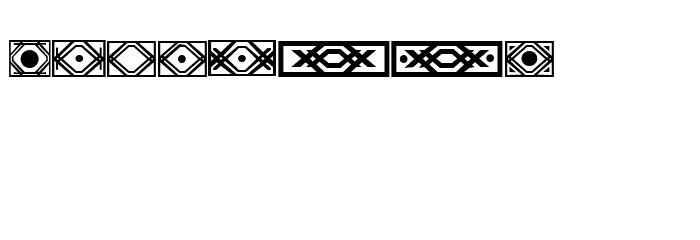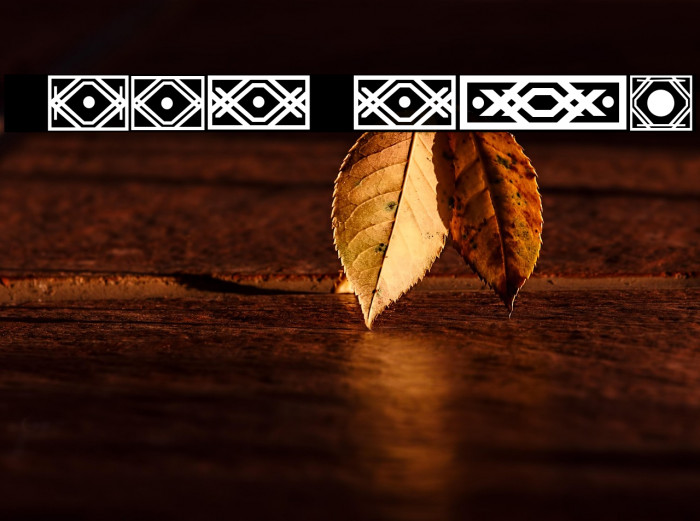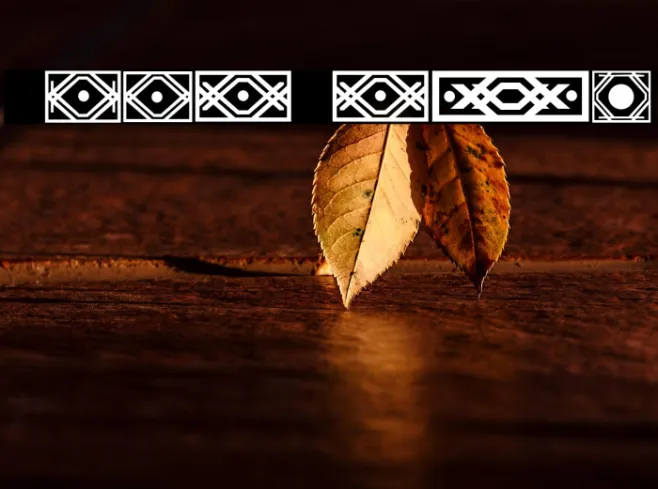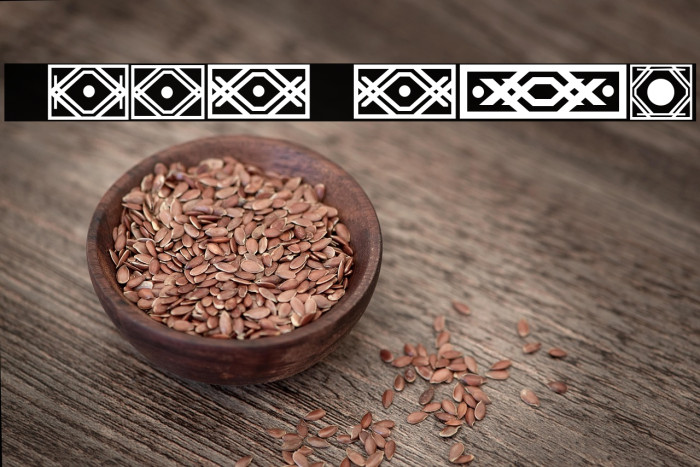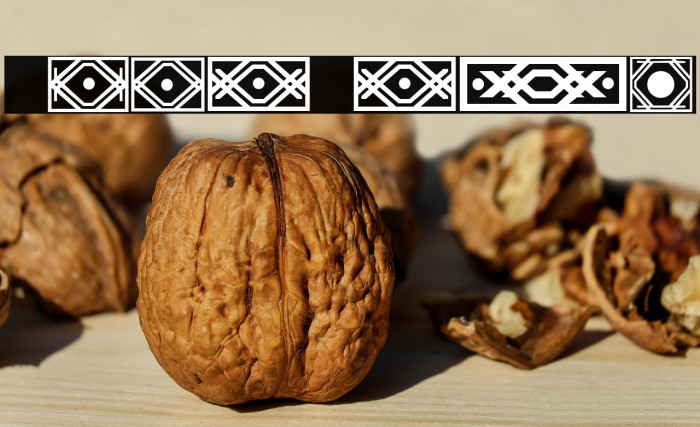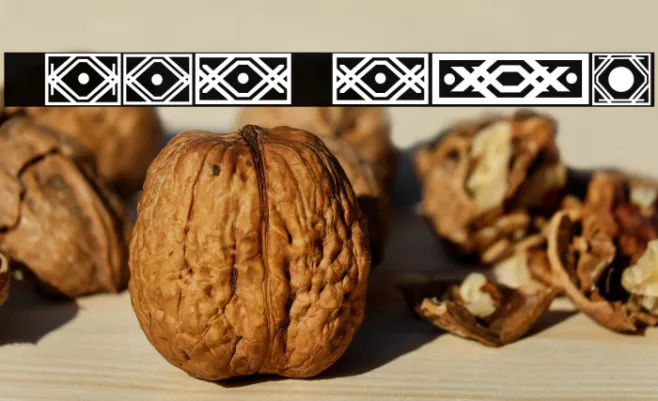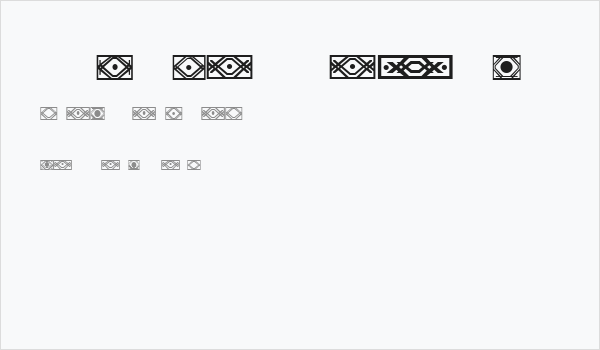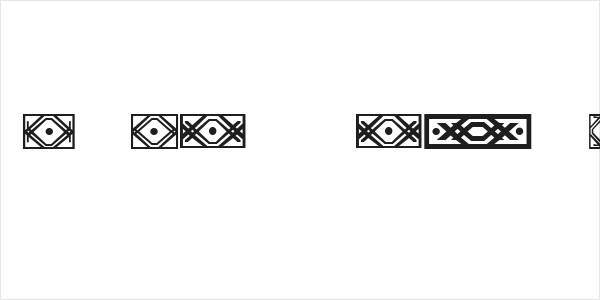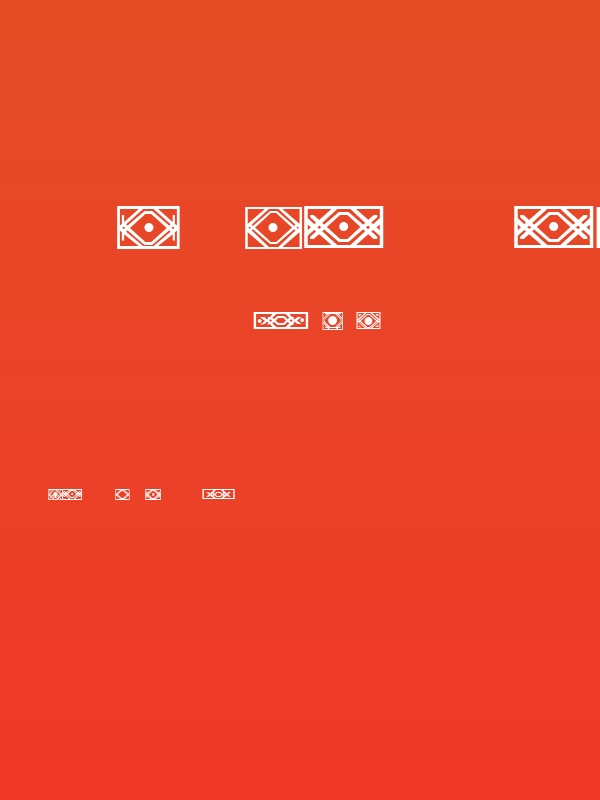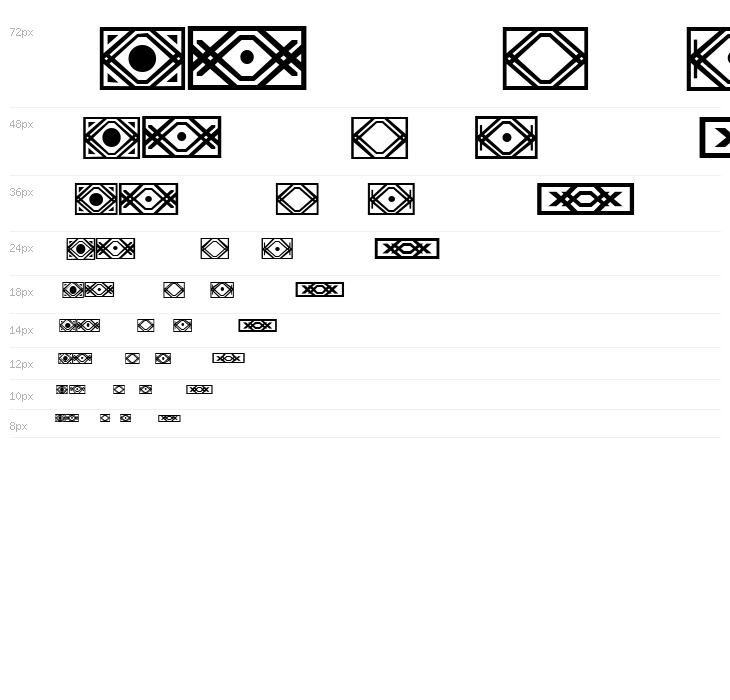
VN Borders Regular Font
VN Borders Regular Description
This design features a series of intricate geometric patterns, each enclosed within a rectangular border. The motifs are bold and symmetrical, incorporating elements such as circles, diamonds, and intersecting lines. The use of thick black lines against a white background creates a striking contrast, making each pattern stand out distinctly. These designs are reminiscent of traditional decorative borders, often used in ornamental art and design. The repetitive nature of the patterns suggests a rhythmic flow, ideal for creating continuous borders in graphic design projects.
| Use Case | Borders, Decorative elements |
| Proposed Projects | Suitable for use in decorative borders for invitations, certificates, or as design elements in graphic projects. |